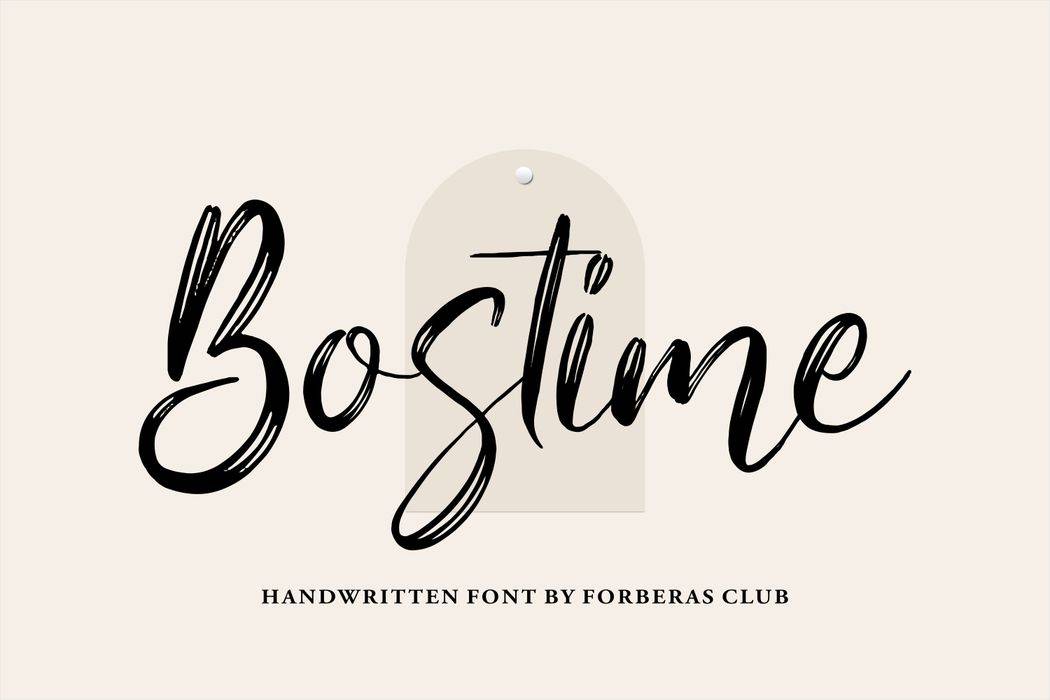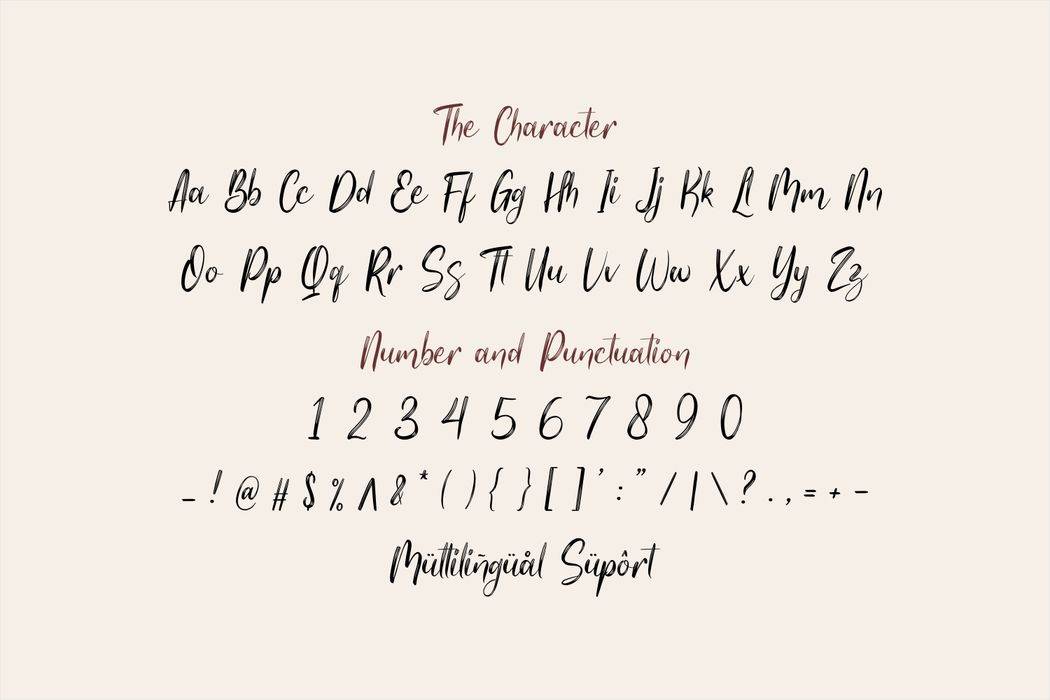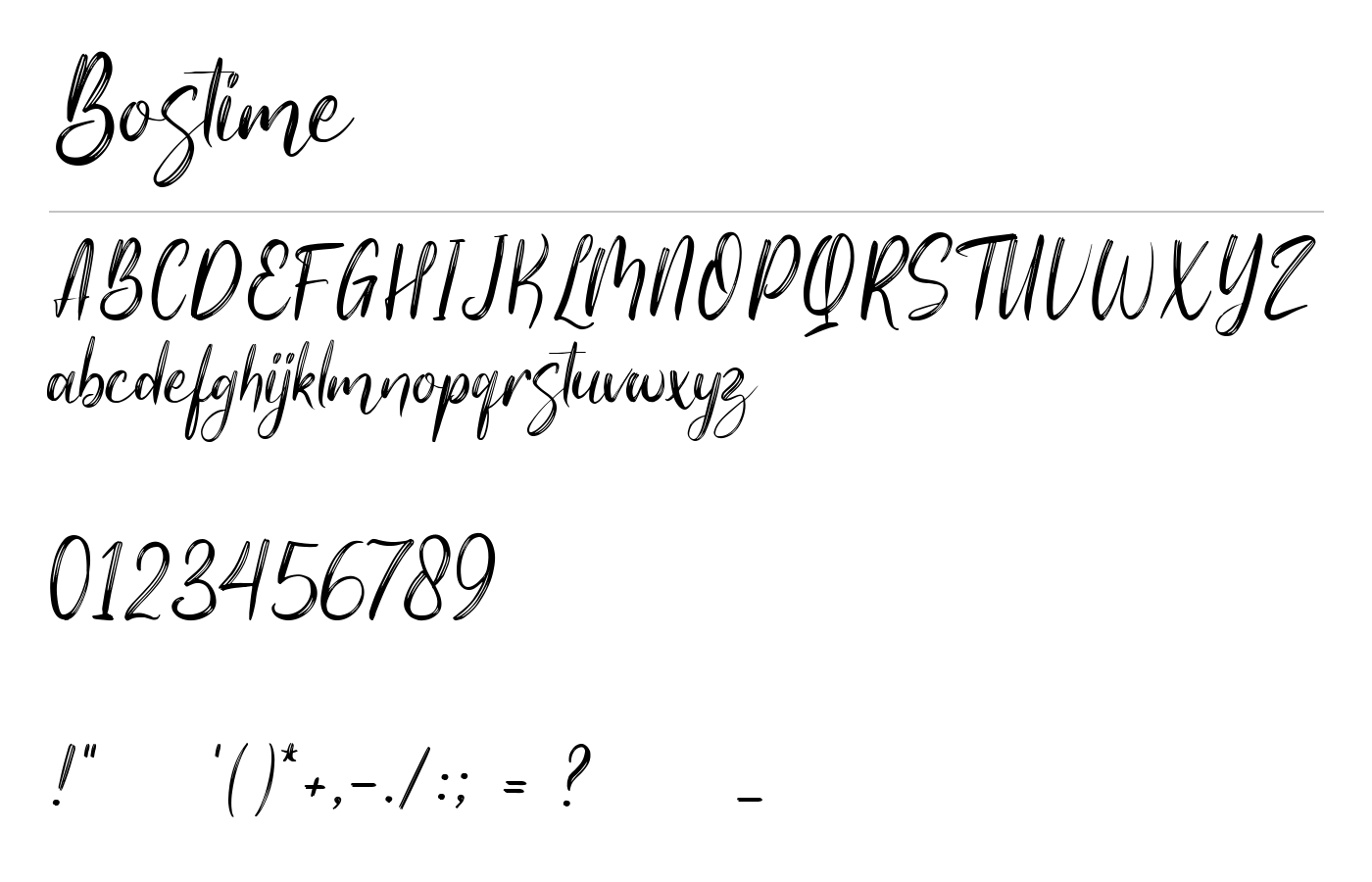
Bostime is a stylish script font with a lively, handwritten feel, characterized by its elegant, flowing strokes and medium contrast between thick and thin lines. Its narrow, tall letterforms and playful curves make it perfect for adding a personal, creative touch to branding, invitations, and headlines where a modern yet approachable look is desired. This font works beautifully in designs that want to convey friendliness and sophistication with a casual flair.
Bostime Font
About Bostime Font
| Font family | Bostime Font |
| Designer | Forberas |